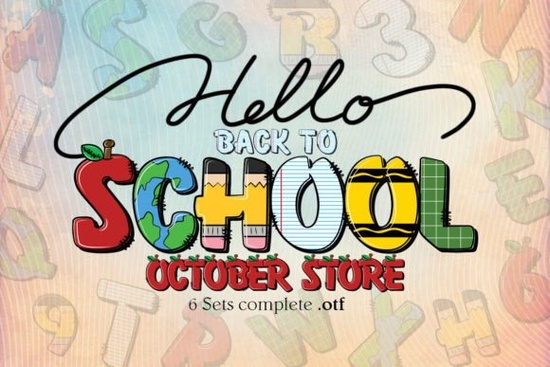
The Back to School Font is a playful, hand-drawn typeface that captures the feeling of sharpened pencils, fresh notebooks, and the excitement of a new school year. Designed with educators, students, and creative hobbyists in mind, it brings a warm, doodle-inspired personality to any project. If you're looking for a typeface that feels personal and fun without sacrificing readability, this one deserves a closer look.
What Makes the Back to School Font Stand Out?
This isn't just another novelty font. The Back to School Font comes with six distinct styles, each inspired by different elements of academic life. You'll find variations that nod to paper textures, pencil sketches, and even themes tied to environmental awareness. That variety means you're not locked into one look you can mix and match styles depending on the mood of your project.
The letterforms have a hand-drawn quality that feels organic and approachable. They look like someone actually sat down and sketched them with care, which gives your designs a human touch that stock-style fonts often lack. For print-on-demand sellers and small business owners, this kind of authenticity can make products feel more personal and appealing to buyers.
Who Is This Font Best Suited For?
This typeface works well for a surprisingly wide range of people and projects:
- Teachers and educators creating classroom decorations, bulletin boards, worksheets, or welcome signs
- Homeschool parents designing custom learning materials with a fun visual style
- Print-on-demand sellers looking for back-to-school designs on t-shirts, tote bags, stickers, and mugs
- Graphic designers working on school event posters, flyers, or social media graphics
- Crafters and hobbyists making scrapbook pages, greeting cards, or planner stickers
- Small businesses near schools or in the education space that want seasonal branding materials
If your audience includes families, students, or anyone connected to the academic calendar, this font fits right in.
What Can You Actually Create With It?
Here are some practical ideas that work well with the doodle-style character of this typeface:
- Back-to-school t-shirts with phrases like "First Day Vibes" or "Hello, New School Year"
- Classroom door signs and bulletin board headers
- Greeting cards for teachers or students at the start of the year
- Social media posts for school supply shops, tutoring services, or PTAs
- Sticker sheets and planner accessories for the academic season
- Party invitations for school-themed birthday parties or events
The playful style pairs especially well with colorful fonts for classroom projects, giving you more creative options when layering text in your designs.
How Does It Compare to Other School-Themed Fonts?
The Back to School Font stands out because of its versatility across six styles. You're essentially getting multiple looks in one package, which makes it a practical choice for sellers and designers who need variety without buying several separate fonts.
Tips for Getting the Most Out of This Font
- Use it at larger sizes. The hand-drawn details show up best when the text isn't too small. Think headings, titles, and display text rather than body copy.
- Pair it with a clean sans-serif. A simple, neutral font balances the playful energy and keeps your layout easy to read.
- Try different styles together. Since the font includes six variations, mix them in a single design for visual interest one style for the headline, another for accents.
- Layer with illustrations. Doodle-style fonts love company. Add simple school-themed icons like pencils, apples, or books around your text.
- Test on mockups first. Before uploading to your print-on-demand store, place the font on product mockups to see how it actually looks printed.